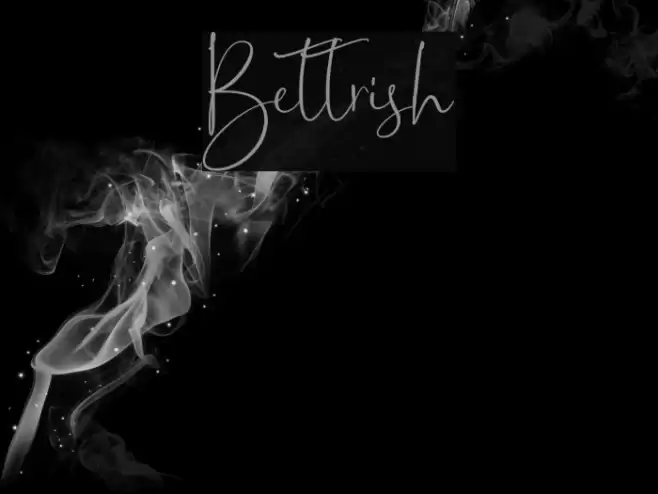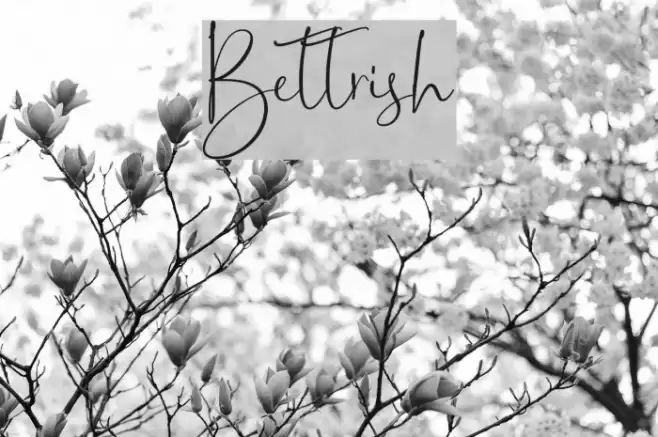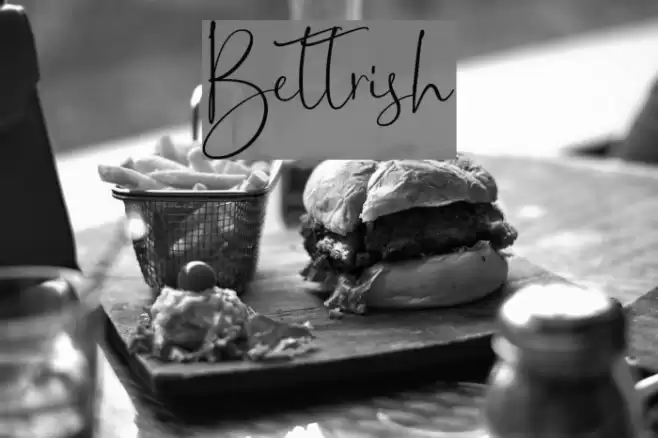
Bettrish Font
Bettrish Description
This font features a delicate and flowing script style, characterized by its elegant, handwritten appearance. The letters are connected with smooth, sweeping strokes that give it a fluid and graceful look. The uppercase letters are tall and slightly narrow, while the lowercase letters maintain a consistent, flowing baseline. The overall design is airy and light, with a whimsical touch that adds a sense of sophistication and charm. The font's thin lines and gentle curves make it suitable for projects that require a personal and artistic touch.
A delicate, flowing script font with an elegant, handwritten style from Uncategorized fonts.
- Proposed Projects: Ideal for wedding invitations, greeting cards, personal branding, and artistic projects that require a touch of elegance and sophistication.
- Weight: Light
- Overall Style: Elegant, Whimsical
- Use Case: Logos, Invitations, Artistic projects